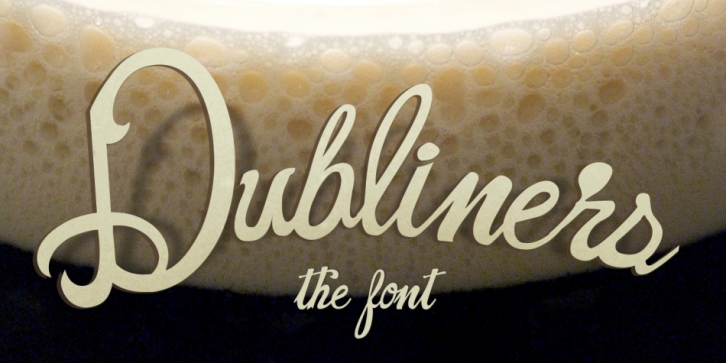
Dubliners is a display and script font family. This typeface has two styles and was published by Frost Foundry.
Dubliners is a hand-drawn, frosting script with an alternate gigantic swash-cap version. Great for invitations and cocktail names. It features glyphs for the entire Western keyboard world including Baltic, Latin, Romanian, and Turkish support. See more and share it at http://facebook.com/FrostFoundry